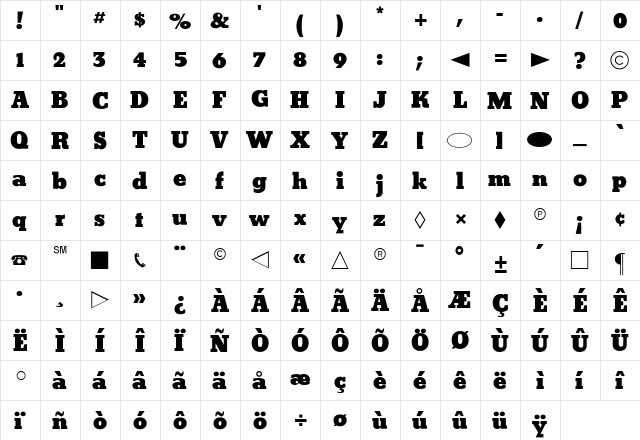
CgBetonExtraBold Medium Font Preview
CgBetonExtraBold Medium
Design Context for CgBetonExtraBold Typeface
CgBetonExtraBold is a composed and adaptable typeface that performs quietly and consistently across a wide range of design contexts. The heavy weight commands attention and anchors typographic hierarchies.